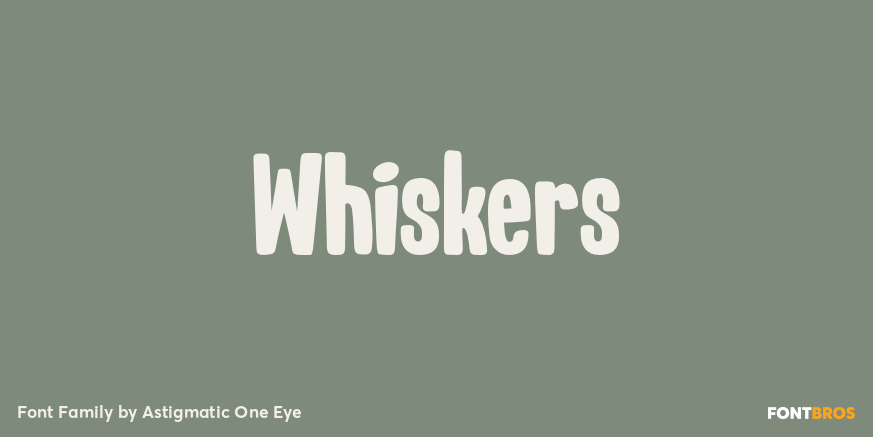
HomeFont BrosSans SerifWhiskers Sans Serif Whiskers FacebookXPinterestWhatsApp 1 of 1 About Whiskers A soft yet bold comic font family.  DOWNLOAD ON FONT BROSThis font is sold and delivered by Font Bros. Font Canyon may earn a commission if you buy through this link. People also explored Simple Planner Font With Farmhouse Font Freaky Halloween Font Arabic Script Font Spring Font Splatter Kings Font Feather Things Font Halloween Night Lo Font Zabars 442 0 TagsWhiskers Font Previous articleFT TantorNext articleOutrage LEAVE A REPLY Cancel reply Comment: Please enter your comment! Name:* Please enter your name here Email:* You have entered an incorrect email address! Please enter your email address here Website: Save my name, email, and website in this browser for the next time I comment. Personal Use Free Heartburn Personal Use Free Read more about this font Sushi Day Personal Use Free Read more about this font Martani Personal Use Free Read more about this font Winter Soldier Personal Use Free Read more about this font BLOG Transform Your Website: Elevate Your Typography with 7 Best Web Font Generators Are you ready to transform your website's typography from ordinary to extraordinary? Great! Today, we're diving into the world of web font generators, which... Free Fonts Risk: Why Free Fonts Can Be Dangerous for Designers To increase your work productivity, choose the most readable fonts. Free vs Paid Fonts: Why Investing in Premium Fonts Is Worth It